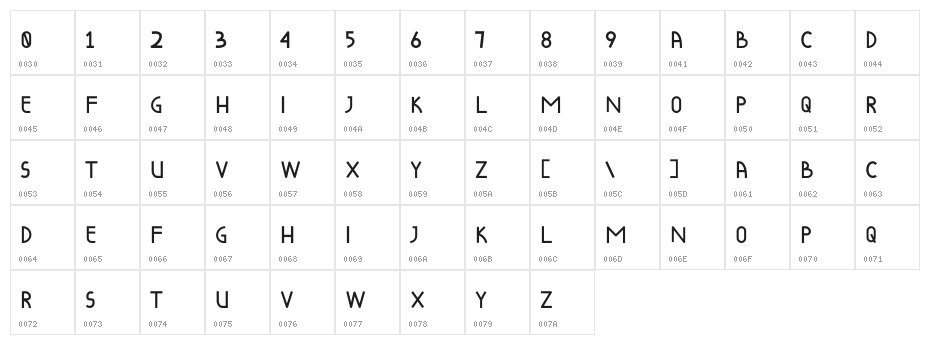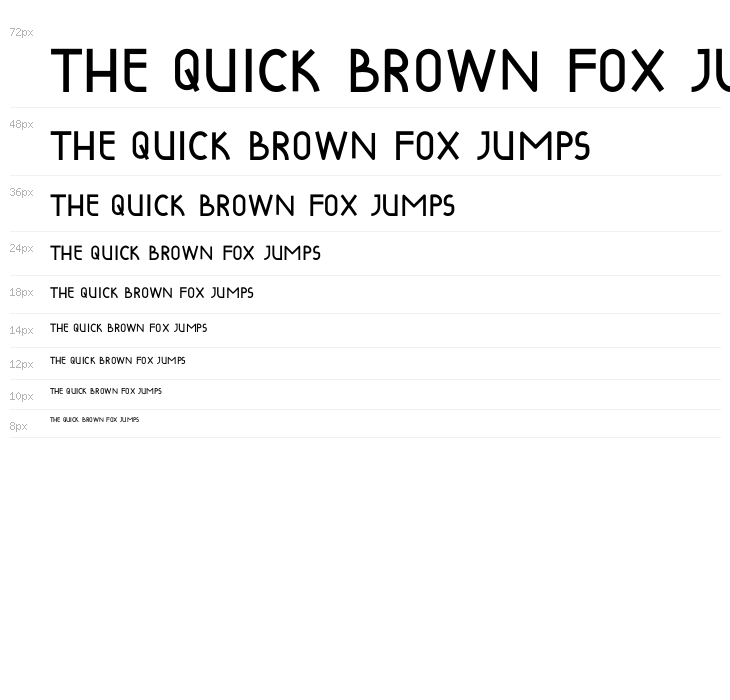
Zula Regular Font
Zula Regular Description
This font features a modern and geometric design with clean, straight lines and sharp angles. The characters are uniform in width, creating a balanced and harmonious appearance. The uppercase letters are bold and assertive, while the lowercase letters maintain a consistent style with slightly softer edges. The numerals are clear and easy to read, matching the overall geometric theme. Special characters are designed with the same attention to detail, ensuring they integrate seamlessly with the rest of the typeface. This font is versatile and can be used in various design contexts, offering a contemporary and professional look.